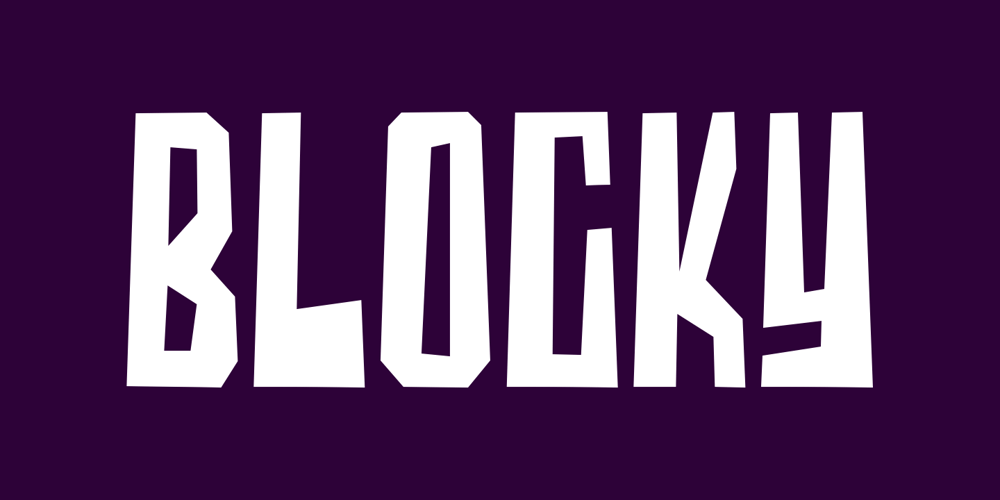
Blocky Font Family was designed by Risman Ginarwan and published by Garisman Studio. Blocky contains 1 styles and family package options. Blocky combines attractive curves with a fresh urban edge; delivering a stylish script which is guaranteed to add an eye-catching appeal to your logo designs, brand imagery, quotes, product packaging, merchandise & social media posts